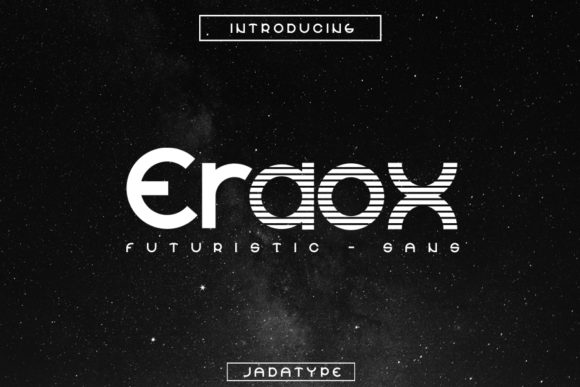
Behold Eraox, the futuristic display font that will catapult your designs into the realm of the extraordinary! Immerse yourself in its unique and modern style, meticulously crafted to elevate your flyers, games, posters, and more to unprecedented heights.
With Eraox, you'll captivate your audience with its captivating glyphs and swashes, effortlessly accessible through PUA encoding. Unleash your creativity and let your imagination soar as you explore the boundless possibilities that await.
Eraox is more than just a font; it's an artistic expression that will transform your designs into masterpieces. Its sleek lines and striking curves evoke a sense of cutting-edge innovation, propelling your projects into the future.
Envision your business reports radiating authority and sophistication, leaving a lasting impression on your clients and partners. Craft flyers that ignite excitement and anticipation, drawing crowds to your events with irresistible allure. Design games that transport players into immersive worlds, captivated by the captivating visuals made possible by Eraox.
Step into the future with Eraox, the font that will revolutionize your design journey. Embrace its boundless creativity and watch as your projects blossom into works of art. Dare to be bold, dare to be different, and let Eraox be your guiding light.